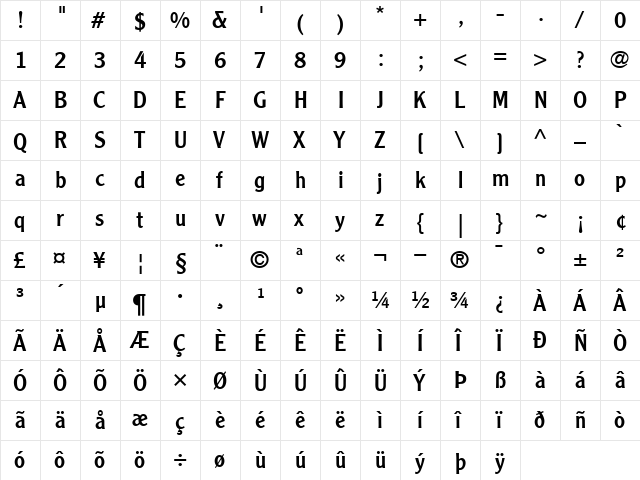
ClearfaceGothicLH55Roman Roman
Design Context for ClearfaceGothicLH55Roman Typeface
ClearfaceGothicLH55Roman has the quiet confidence of well-executed sans-serif typography: versatile, unobtrusive, and dependable at any size.
Font Pairing: Works well alongside a characterful serif or display font that can carry the expressive load while ClearfaceGothicLH55Roman handles the functional copy.
Pro Tip: Pair ClearfaceGothicLH55Roman with a display or serif font for headlines — its neutral character makes it an excellent supporting player in complex typographic systems.